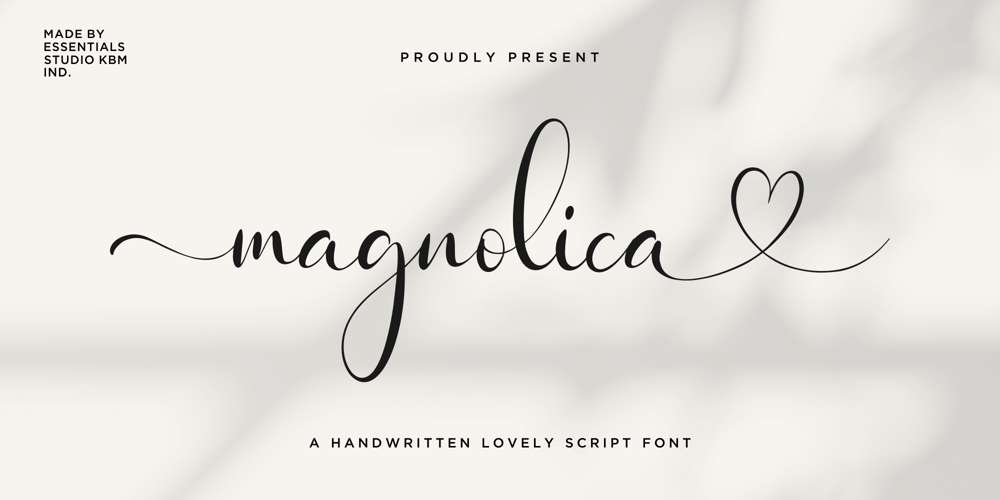
Magnolica Font Family was designed by Sulthan Mada Maulana Tsani and published by Essentials Studio. Magnolica contains 1 styles and family package options. Introducing by Essentials StudioProudly Present, Magnolina Is a Lovely Script Font With Swash and Ligature More Than 50 Stylish love AlternateMagnolina is perfect for product packaging, branding project, megazine, social media, wedding, or just used to express words above the background.